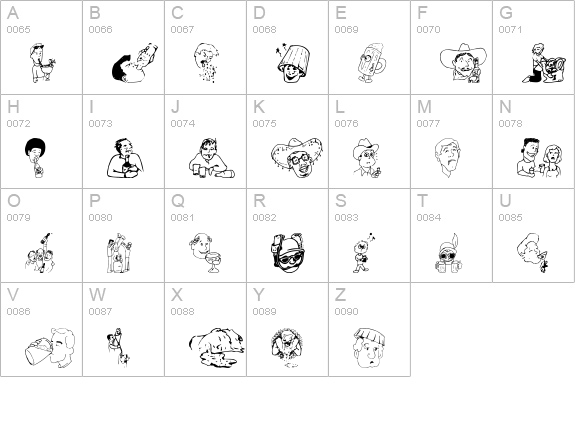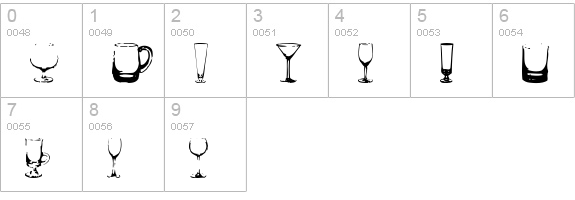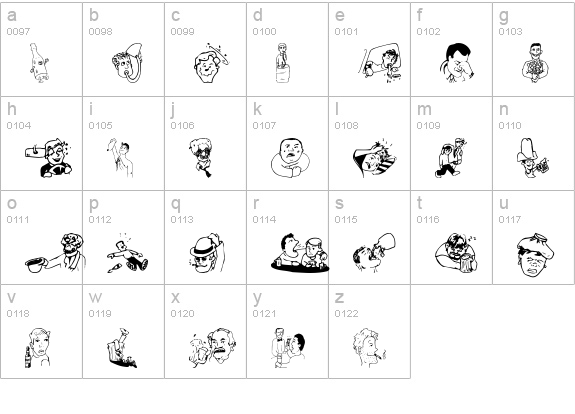
BoozeBats Font Details
Introducing BoozeBats font, an edgy and stylish typeface that is perfect for adding a touch of attitude to your designs. This unique font features bold and dynamic characters inspired by the world of nightlife and partying. With its playful yet contemporary aesthetic, BoozeBats font is sure to make a statement in any project. What's even better is that BoozeBats font is available for free download at FontsMarket.com. So go ahead and grab this versatile font to elevate your designs with a touch of boldness and flair. Whether you're working on a poster, flyer, branding project, or any other creative endeavor, BoozeBats font will surely make your text pop and stand out. Elevate your designs with BoozeBats font today!